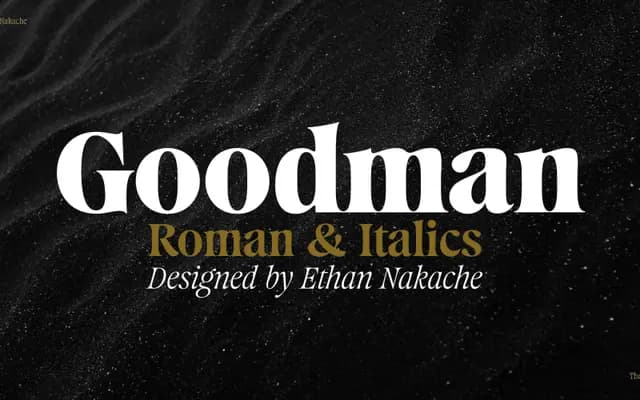
Goodman specimen from The Designers Foundry
A revival of Gerhard Schwekendiek's Gesh Ortega Roman 275, reworked by Ethan Nakache across six weights with matching italics and variable font files.
Designed by Ethan Nakache over four years, it preserves the rhythm and character of the original Gesh Ortega Roman while refining the italics and adding contemporary versatility for modern typesetting. A defining structural detail is the interconnected serifs at stem joins, which form a consistent elliptical curve across characters. Available in 12 static styles plus two variable fonts covering the full weight range, with OpenType features including oldstyle numerals, tabular figures and alternate letterforms.
A revival of Gesh Ortega Roman 275 by Gerhard Schwekendiek, with bracketed serifs and rhythm built on interconnected stem serifs forming an elliptical motif at joins — consistent with transitional serif construction.